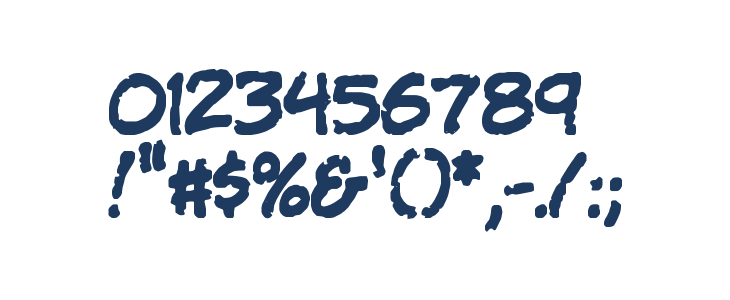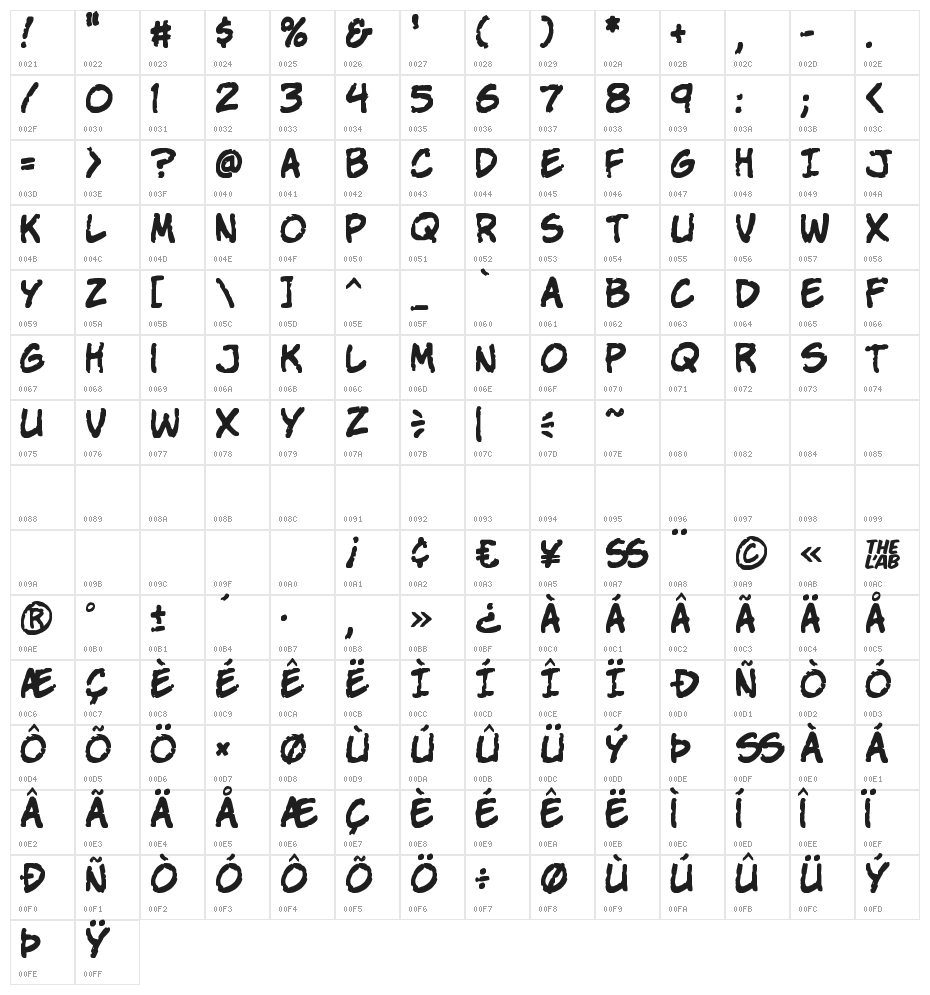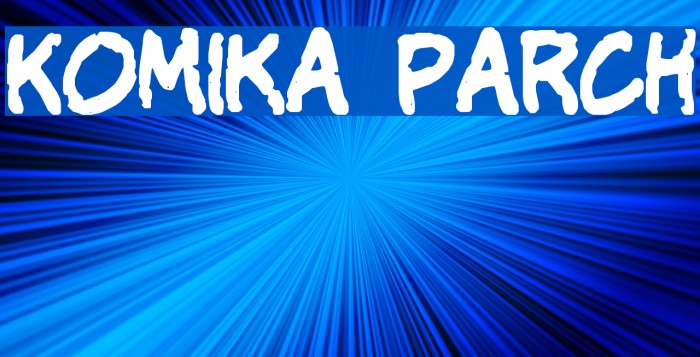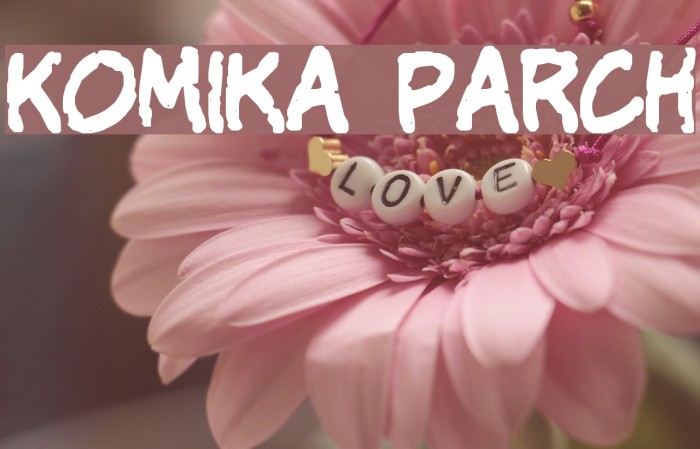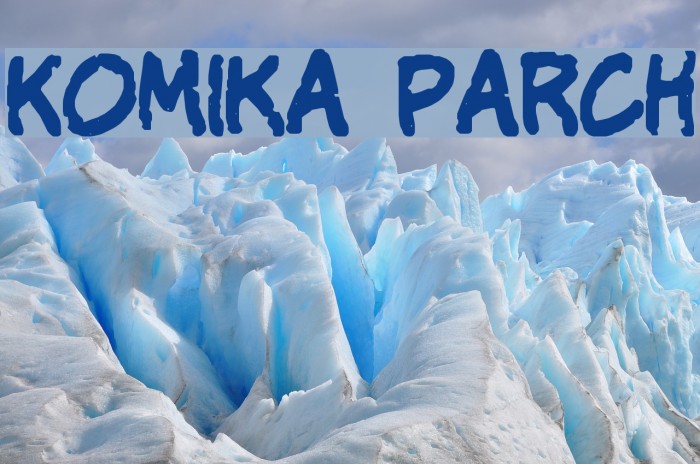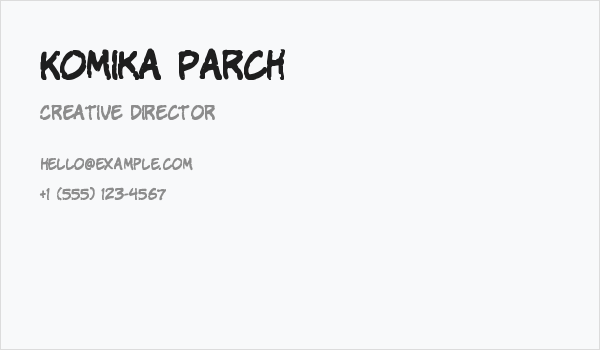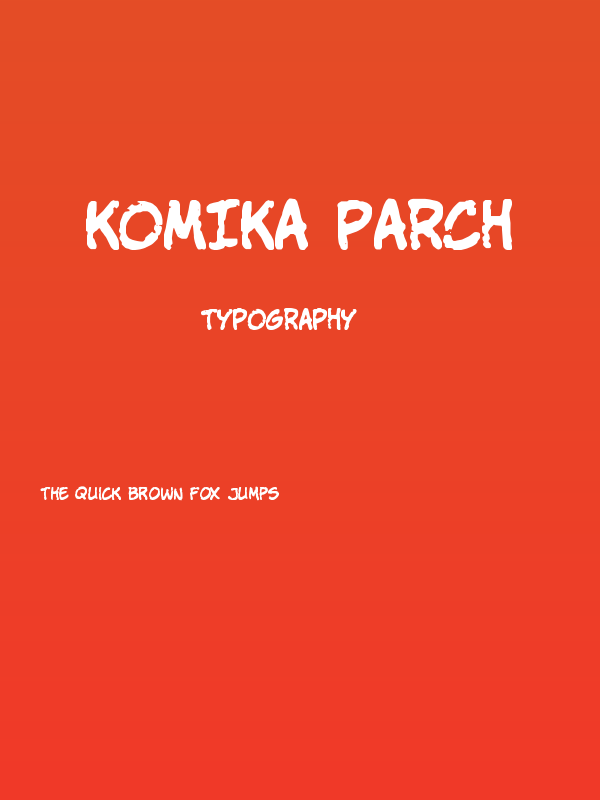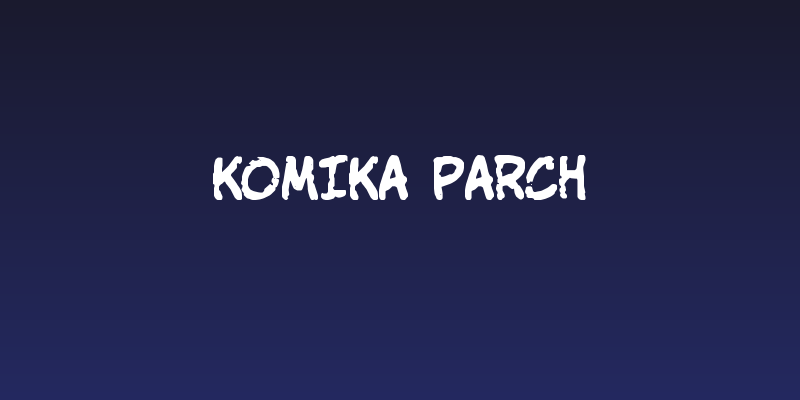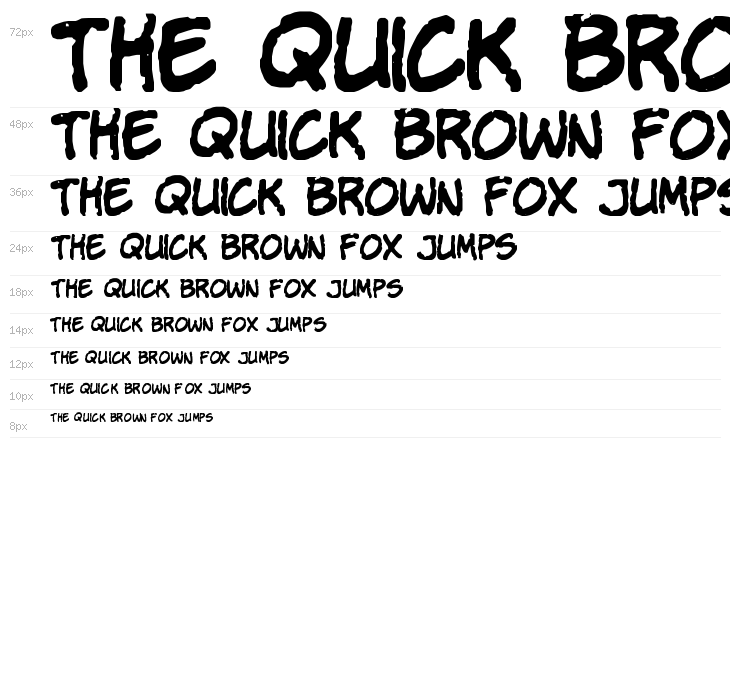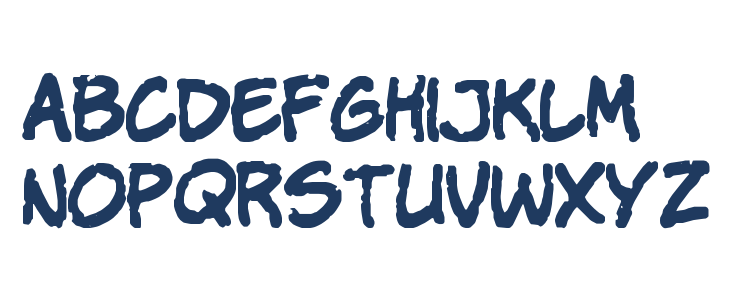
Komika Parch Font
Komika Parch Description
This font features a bold and playful style with a hand-drawn appearance. The characters are thick and rounded, giving them a cartoonish and informal look. The strokes are uneven, adding to the casual and whimsical feel. The uppercase and lowercase letters maintain a consistent style, with a slightly exaggerated form that enhances readability. The numbers and special characters follow the same design principles, ensuring a cohesive look across all glyphs. This font is ideal for projects that require a fun and approachable aesthetic.
| Overall Style | Playful and informal |
| Proposed Projects | Ideal for comic books, children's books, playful branding, and informal posters. |